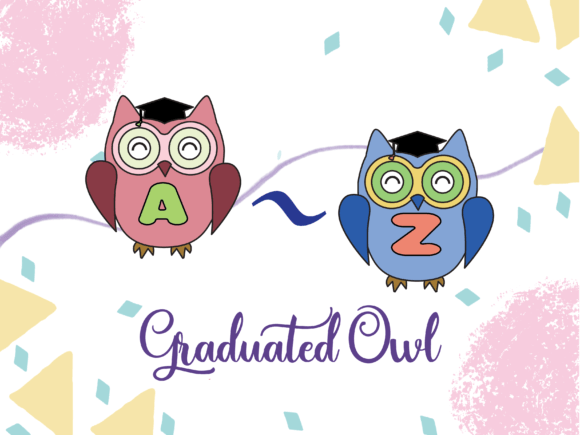
Meet the Hoot-est Graduation Font Around
Who among us hasn’t found ourselves doodling silly designs in the margins of a notebook? Maybe it’s a cartoon character in a superhero cape, or a smiling sun with a pair of sunglasses. For designers and typography enthusiasts, the moment of creative spark is often a treasure trove of inspiration. And for some, that spark came in the form of a wise and witty owl wearing a graduation hat – introducing the Graduated Owl Font.
This adorable font is more than just a novelty; it’s a valuable tool for designers looking to add a touch of whimsy and personality to their projects. Whether you’re creating a graduation invitation, a social media post, or a fun design for a client, the Graduated Owl Font is sure to bring a smile to your audience’s faces.
Graduated Owl Font Key Features
- Unique Character Set: The Graduated Owl Font features a unique character set with 180 glyphs, including a wide range of punctuation marks and special characters.
- Scalability: The Graduated Owl Font is designed to be highly scalable, making it suitable for use in a wide range of applications, from small text to large headings.
- Legibility: The font features a clear and legible design, with a high x-height and well-spaced letters for easy reading.
- Multi-Language Support: The font includes support for multiple languages, including Latin, Cyrillic, and Greek scripts, making it a versatile choice for global applications.
Graduated Owl Font Review
I’ve had the chance to work with the Graduated Owl Font, and I must say it’s a unique and interesting addition to any design project. ✨ One thing that stands out is the font’s ability to add a touch of whimsy and sophistication at the same time. The graduated style creates a sense of depth and visual interest, making it perfect for titles, headings, and other attention-grabbing elements.
- ✨ Great for adding a touch of whimsy and sophistication
- ✨ Suitable for titles, headings, and other attention-grabbing elements
- ✨ Works well in both digital and print designs
However, there are a few limitations to consider. ⚠️ The font may not be suitable for large blocks of text, as the graduated style can become overwhelming and difficult to read. Additionally, the font may not be compatible with all devices or systems, so it’s essential to test it thoroughly before using it in a project.
Overall, I think the Graduated Owl Font is a great addition to any designer’s toolkit. While it may have some limitations, its unique style and versatility make it a valuable resource for creating eye-catching and engaging designs.
The Graduated Owl Font is perfect for creating:
– Titles and headings for presentations, reports, and documents
– Custom typography and logos
– Eye-catching quotes and captions
– Elegant and sophisticated graphics and designs